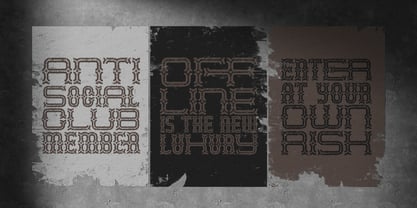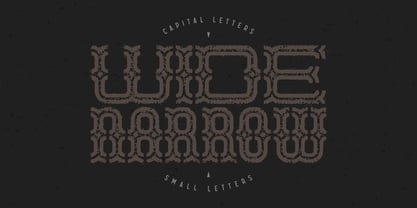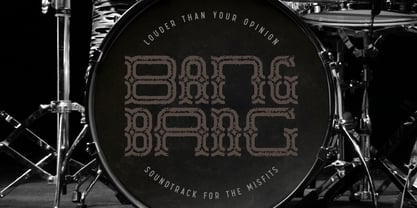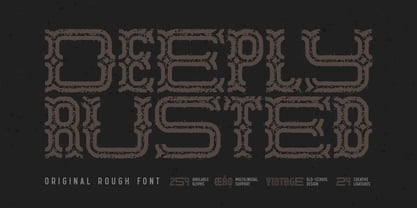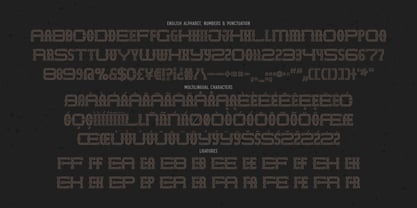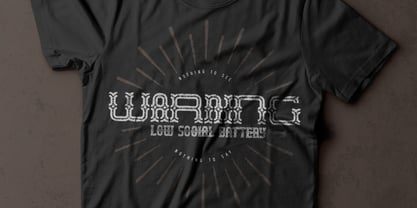
Deeply Rusted
by Gleb Guralnyk
The Deeply Rusted Font Family was designed by Gleb Guralnyk and published by Gleb Guralnyk. Deeply Rusted contains 1 styles. More about this family
Hi! Introducing an original textured font named Deeply Rusted. This slab-serif font blends raw character with refined structure, featuring an expressive vintage style. It's perfect for old-school headlines, t-shirt prints, and designs that crave a touch of crafted imperfection.
This font features wide characters for capital letters and narrow characters for lowercase ones. Wide number characters can be accessed via the Stylistic Alternates OpenType feature. The Deeply Rusted font includes 245 characters with 24 ligatures and multilingual support — check the screenshot to view the full character set!
A lot of my fonts inherits vintage graphic styles but nevertheless I don't like to stick to one theme for a long time. That's why I'm trying to create fonts in different styles and from different eras, from old gothic calligraphic to modern handwritten scripts, from medieval antique to minimalist sans-serif typefaces. It's always interesting to design something new, and expand my skills in novel font design directions.